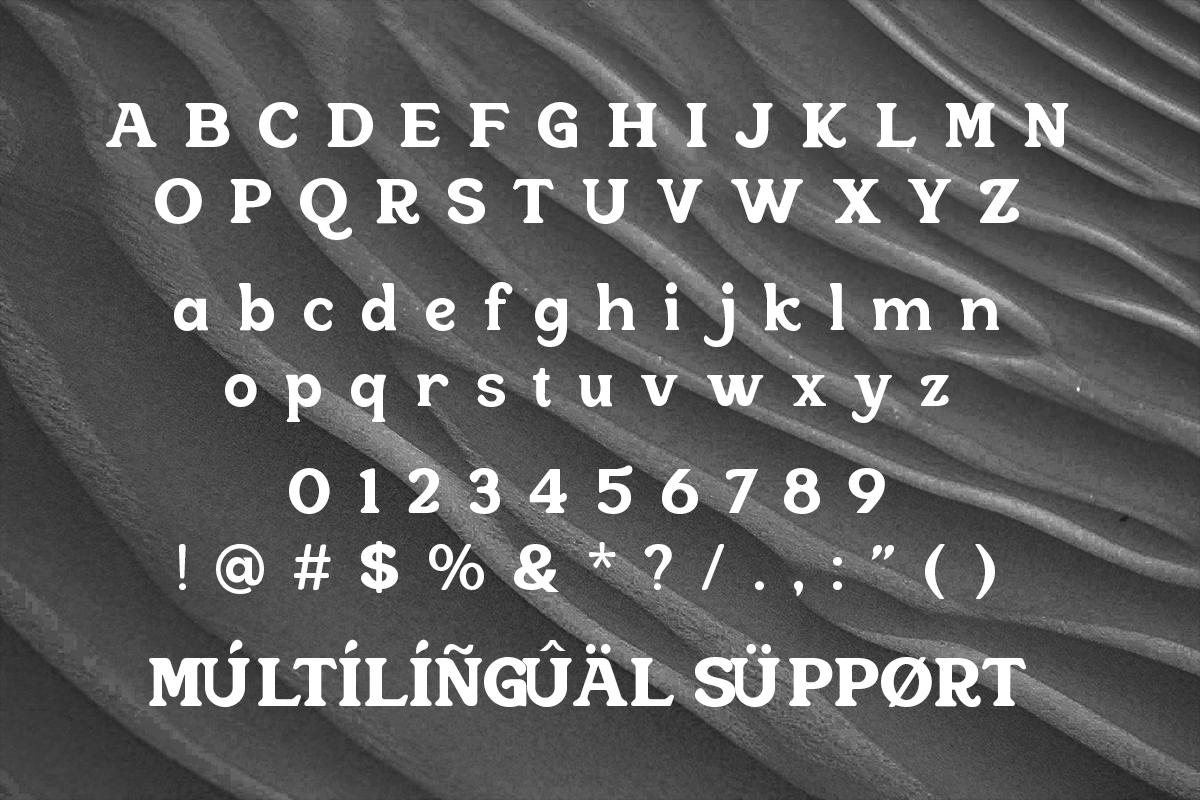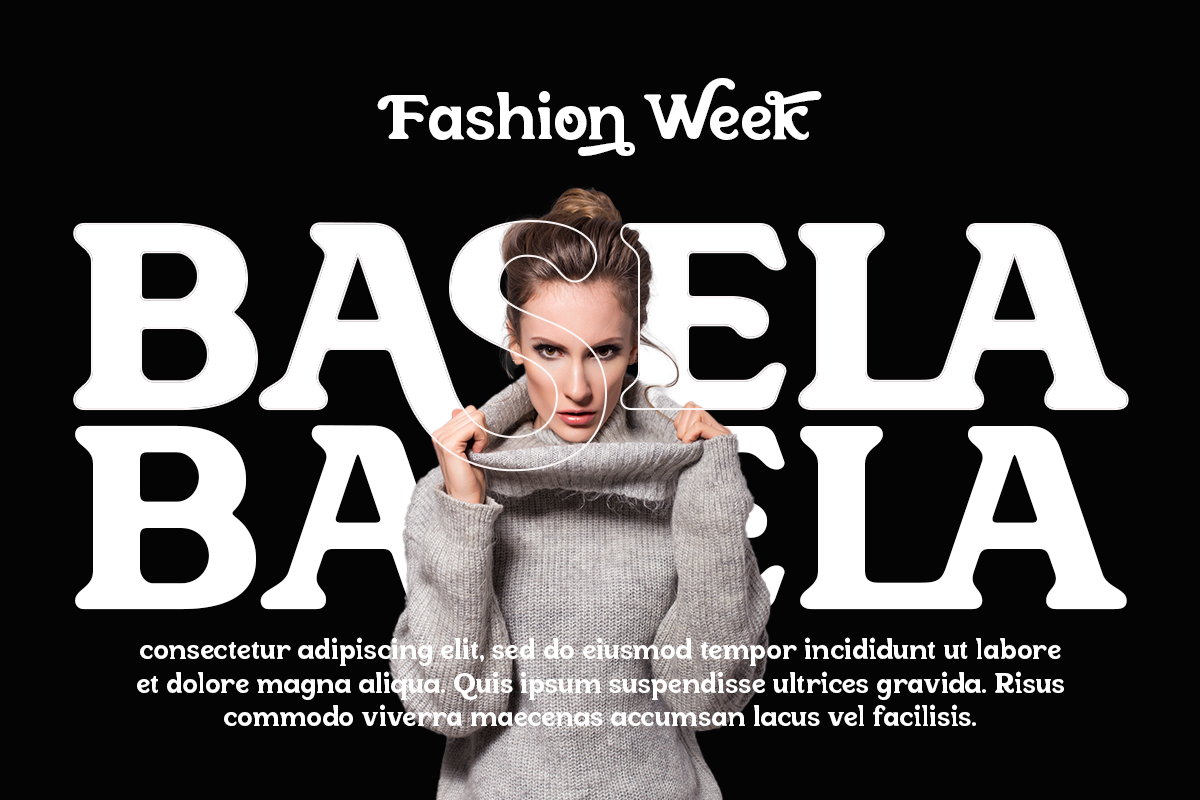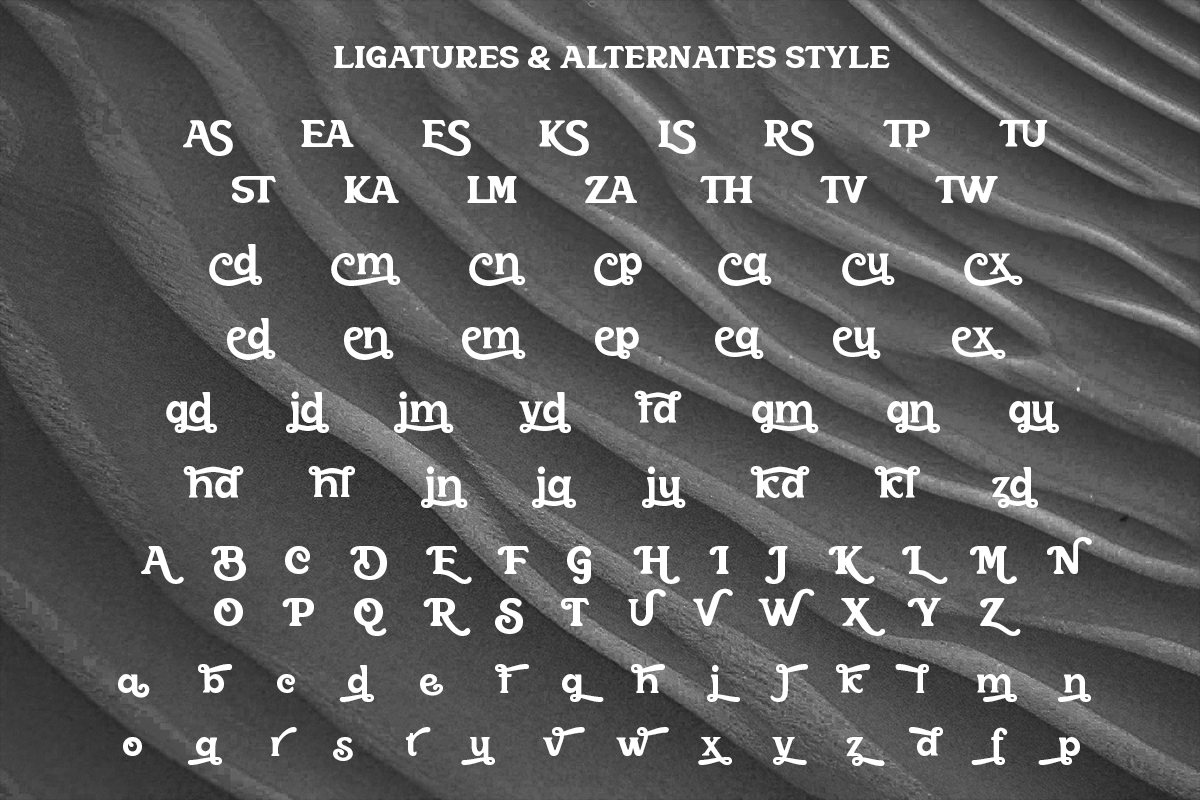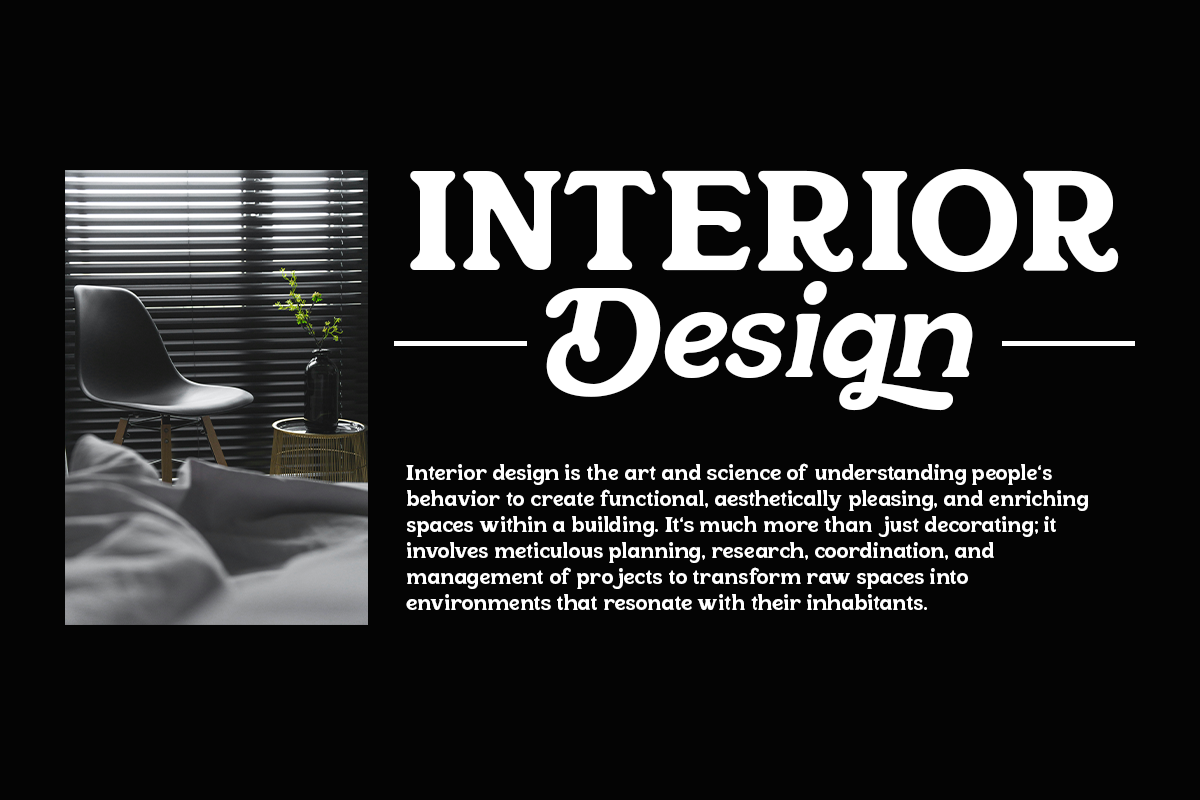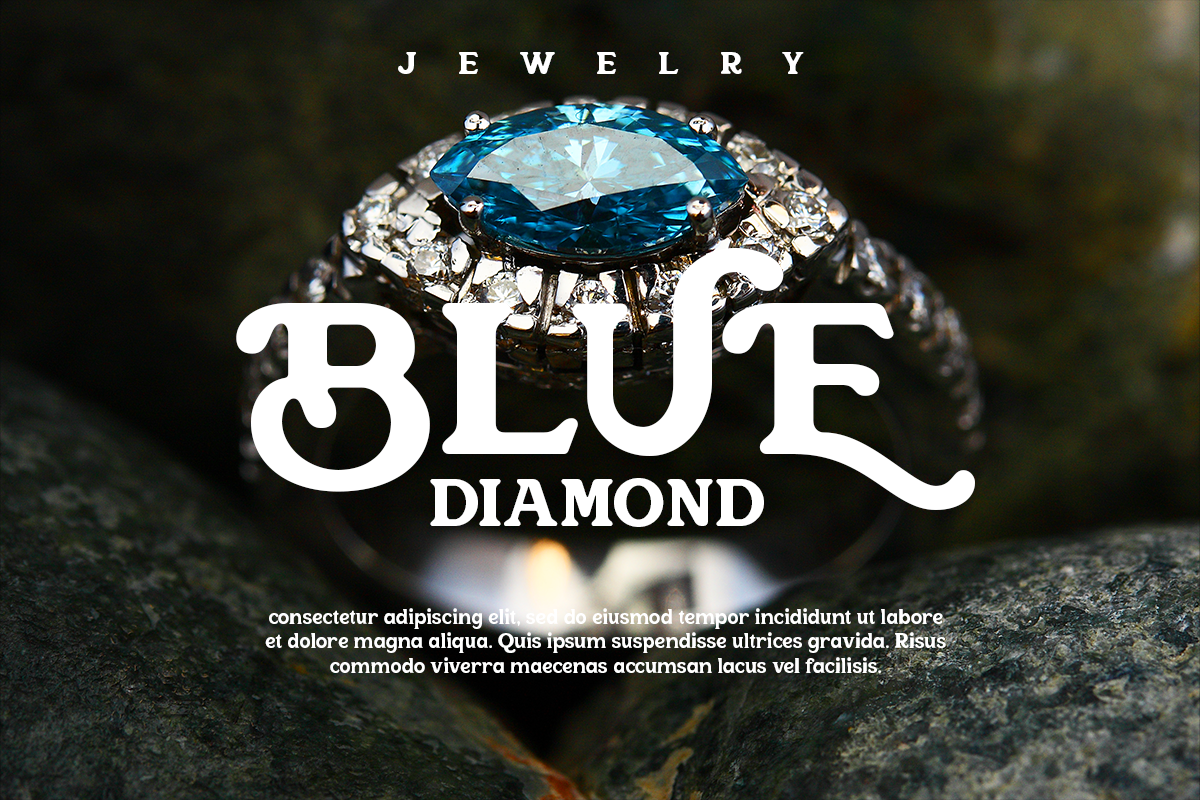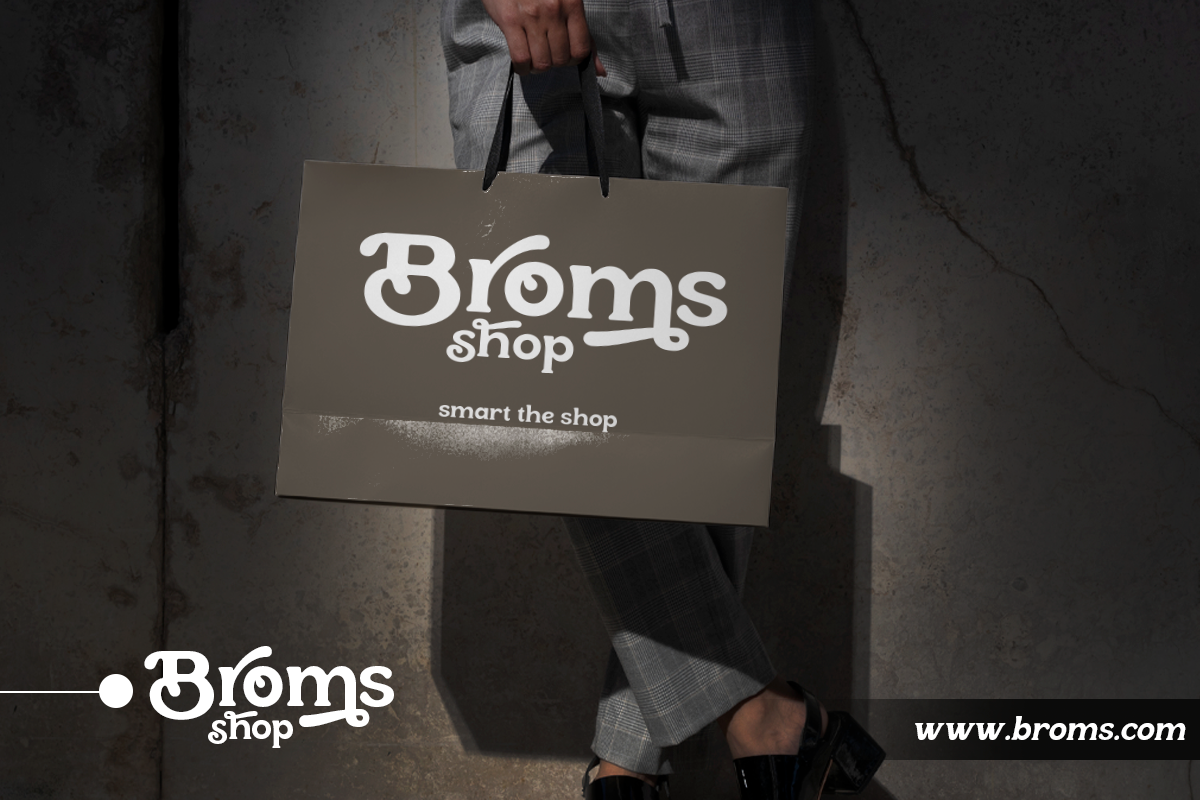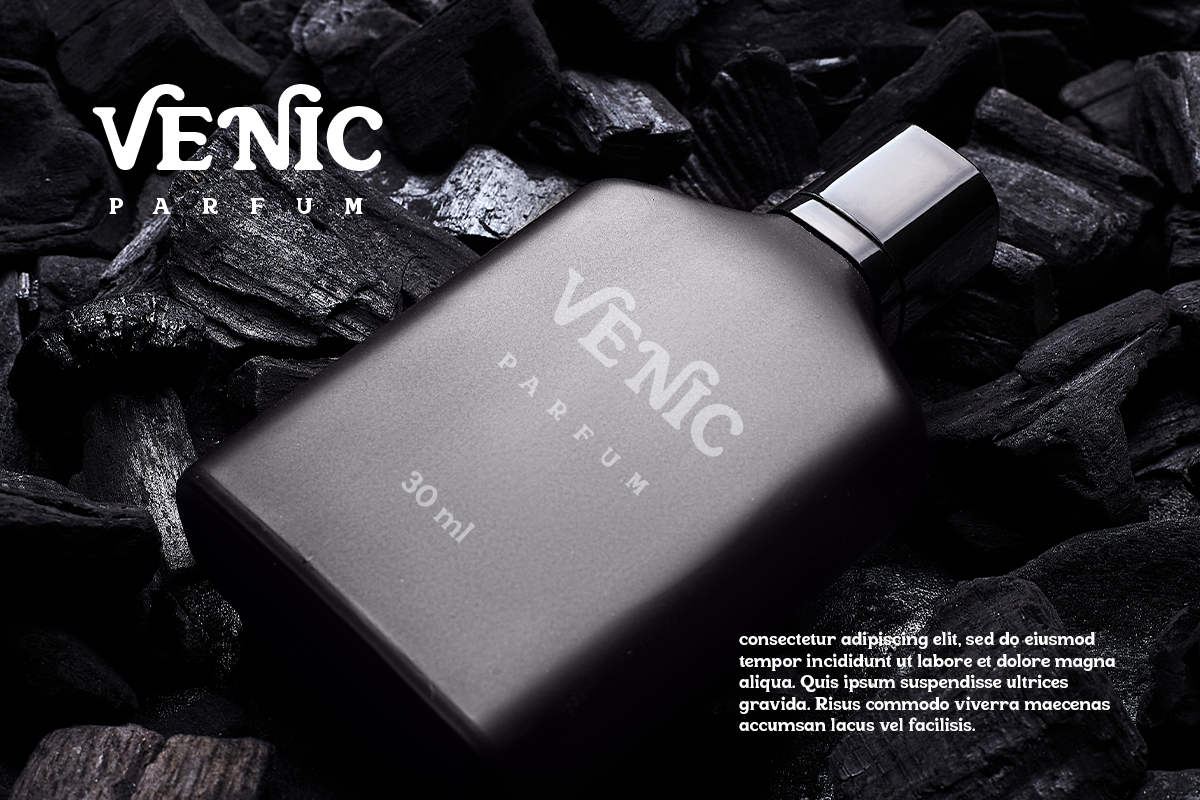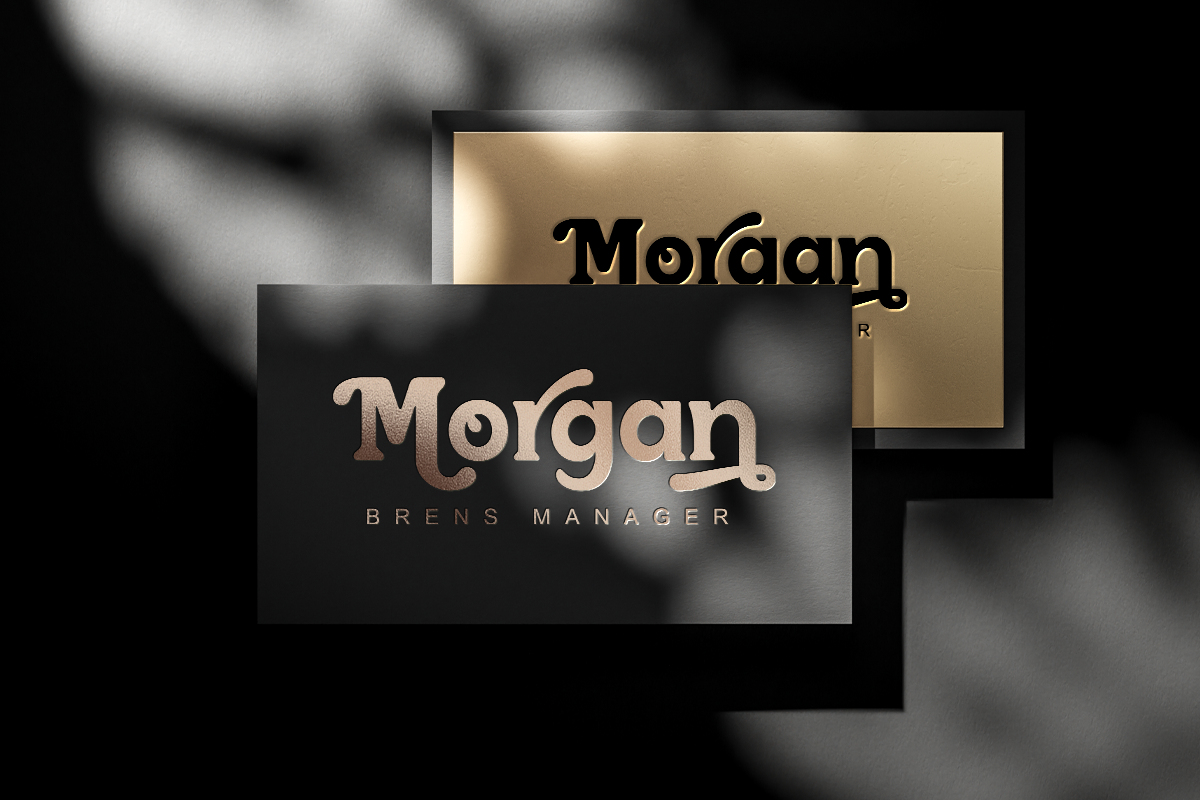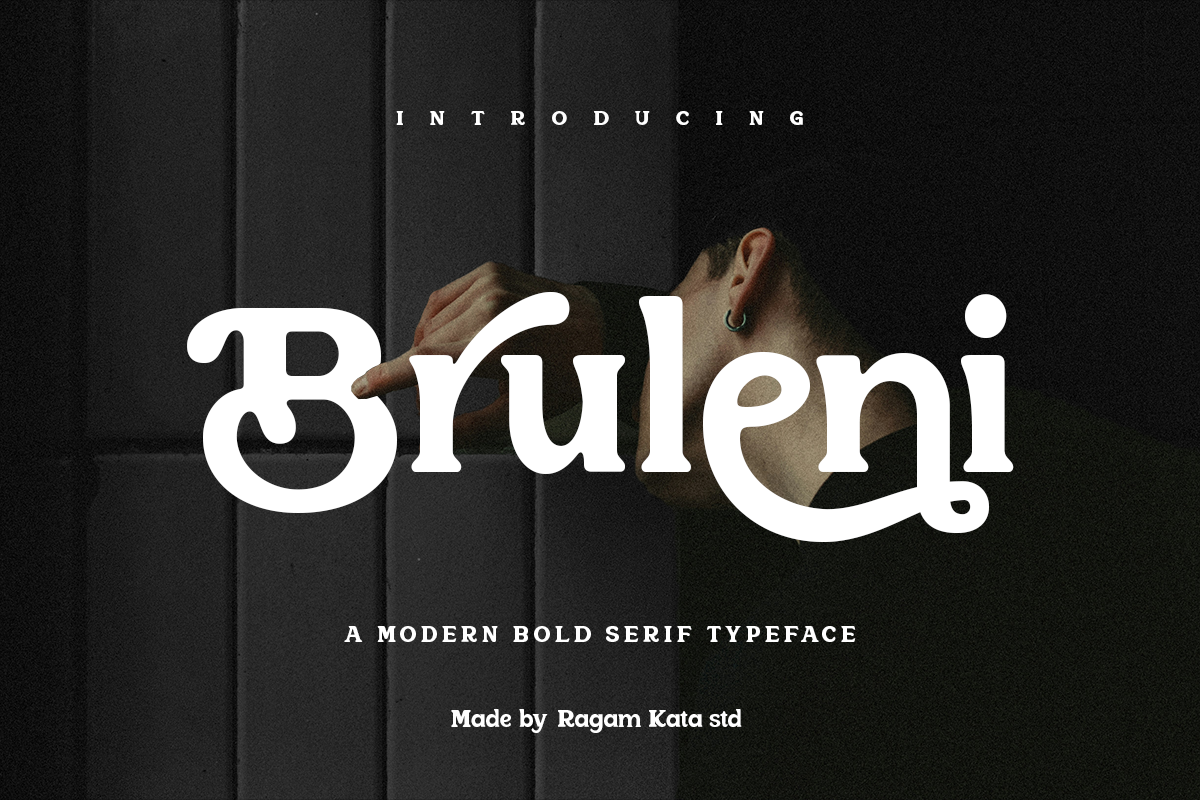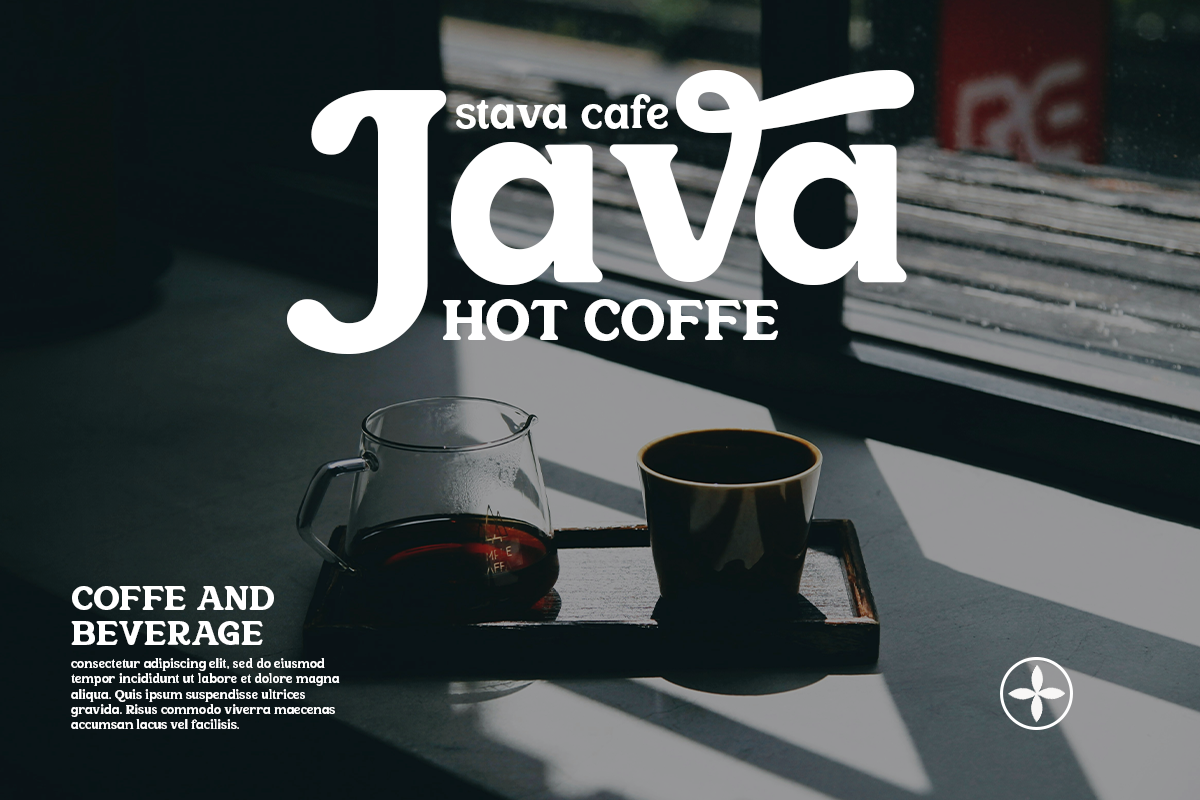
Bruleni - Modern Bold Font
Bruleni is a bold serif font designed to make a statement. With thick strokes, sharp serifs, and a confident attitude, it’s ideal for luxury branding, editorial designs, and fashion-forward projects. Each character is crafted with elegance and flair, balancing modern strength with classic sophistication. Whether for logos, packaging, or headlines, Bruleni adds undeniable presence to your visuals.